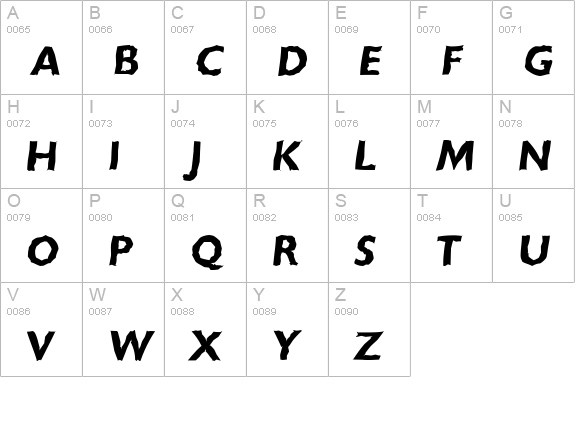
ChantillyRandom-BoldItalic Font Details
ChantillyRandom-BoldItalic font is a stylish and modern typeface that exudes confidence and sophistication. Its bold and italic design makes it perfect for adding a touch of elegance to any project. The unique curves and angles of this font give it a dynamic and eye-catching appearance that will make your text stand out. Best of all, ChantillyRandom-BoldItalic font is available for free download at FontsMarket.com. Whether you're working on a professional design project or simply want to add a touch of flair to your personal creations, this font is a must-have in your collection. With its sleek and contemporary look, ChantillyRandom-BoldItalic font will elevate your designs to new heights. Download it today and let your creativity shine!